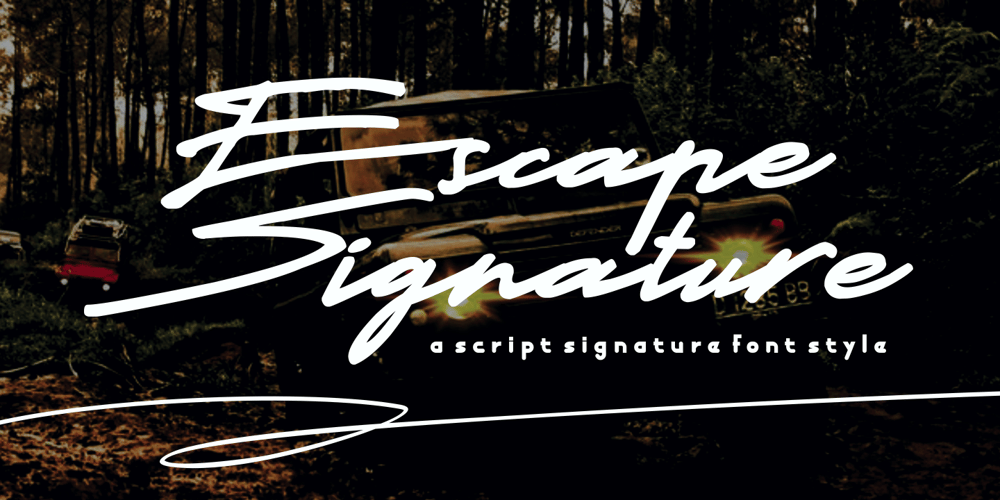
Escape Signature
Escape Signature font
Escape Signature Font Family was designed by Muhammad Nazarudin and published by Niznaztype. Escape Signature contains 1 styles and family package options. Escape Signature was created with a brush pen by handwritten technique in natural brushing. Escape Signature is very inspired my own signature writing.Escape Signature has a simple and easy characteristic. This font is perfect for all of designs that use script and signature style. You can use it in taglines, signatures, posters, branding, advertising, invitations, greeting cards, and more.Escape Signature typeface will make your graphic designs stronger and give it more character.